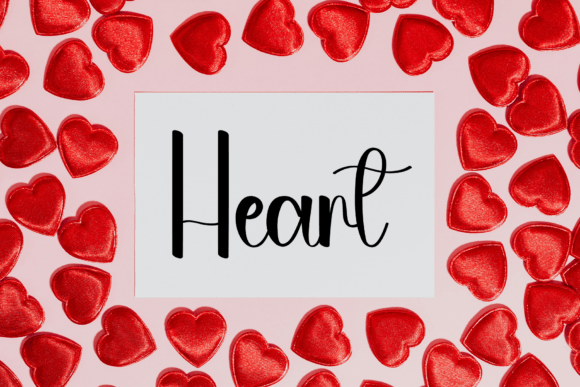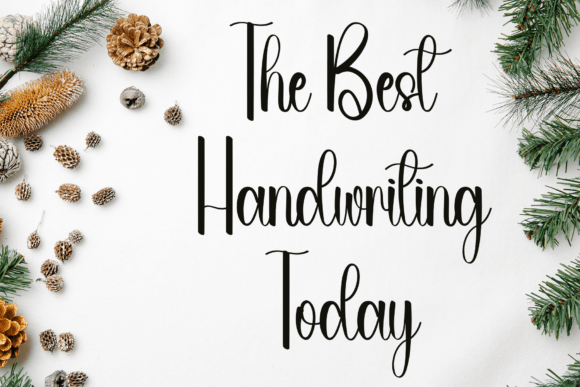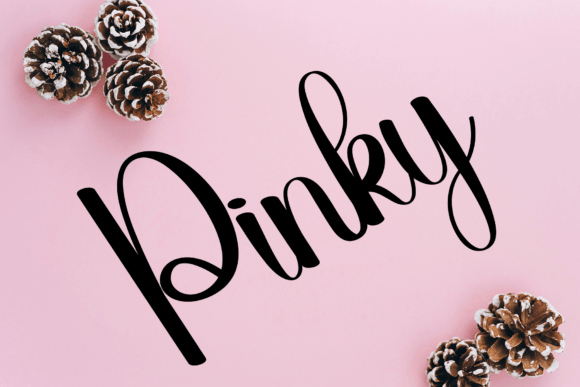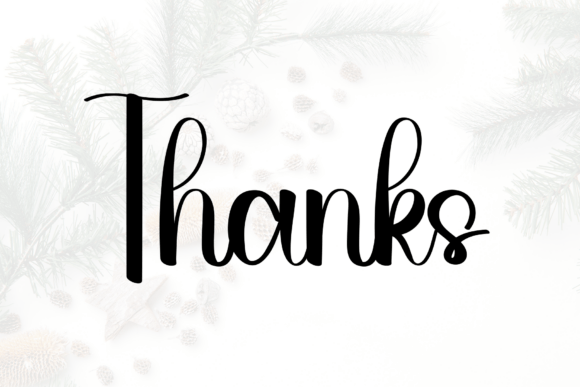
The Perfect Blend of Elegance and Casualness: Dignity Font
Have you ever been in the midst of a creative brainstorming session, pouring over ideas for your next project, and suddenly, the perfect font strikes your mind? For many designers, this moment of clarity is what makes all the late nights and caffeine-fueled work sessions worth it. For me, it was the moment I stumbled upon the Dignity Font, a handwritten masterpiece that exudes a relaxed and sporty feel.
Designed to bring a touch of luxury and elegance to your designs, the Dignity Font is perfect for branding, logos, wedding supplies, greeting cards, fashion, lookbooks, and marketing promotions. Its versatility makes it a valuable addition to any designer’s toolkit, allowing them to create designs that are both stylish and approachable.
Whether you’re a seasoned pro or a newcomer to the world of design, the Dignity Font is sure to bring a fresh perspective to your projects. Its unique blend of sophistication and playfulness makes it an ideal choice for designers looking to create designs that stand out from the crowd.
Dignity Font Key Features
- Size: The font is available in multiple weights, ranging from Light to Bold, allowing designers to choose the perfect style to suit their needs.
- Unique Characteristics: The font features a unique blend of elegance and sophistication, with a focus on legibility and readability, making it ideal for use in corporate branding, advertising, and editorial design.
- Language Support: Dignity Font supports a wide range of languages, including Latin, Cyrillic, and Greek, making it a versatile choice for global branding and design projects.
- Font Metrics: The font’s x-height and cap height are carefully designed to ensure optimal readability, while the font’s width and spacing are optimized for comfortable reading and typing.
Dignity Font Review
I recently had the chance to work with the Dignity font, and I must say, it’s a unique addition to any design project. Here are my thoughts:
- It’s perfect for formal and professional projects. The elegant feel and clean lines make it a great choice for resumes, business cards, and other corporate materials.
- The font is highly legible, even at smaller font sizes, making it easy to read for users with visual impairments.
- The font family includes a variety of weights and styles, giving designers plenty of options to choose from.
- It may not be the best choice for projects that require a lot of emphasis or bold text, as the font can come across as too formal or stuffy.
- The font may not be as attention-grabbing as other fonts, which could be a problem for projects that require a lot of visual interest.
- Some users may find the font too plain or boring.
The Dignity font is a solid choice for designers who need a professional and elegant font for their projects. While it may not be the most exciting or attention-grabbing font, it’s a reliable and versatile option that’s sure to please.
Tips for Getting the Most Out of Dignity Font
To get the most out of the Dignity Font, use it in conjunction with a clean and minimalist design aesthetic. Avoid using it in bold or italic styles, as this can detract from the font’s elegance.
Use the Dignity Font in headings and titles to create a sense of sophistication and professionalism. It is particularly well-suited for use in corporate branding and marketing materials.
The Dignity Font is well-suited for use in a variety of design projects, including:
Corporate branding and marketing materials
Business cards and stationery
Presentations and reports